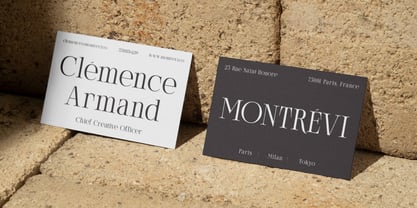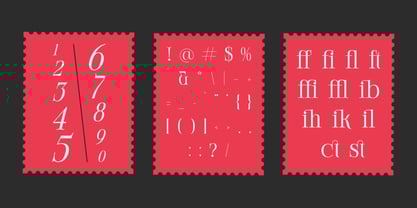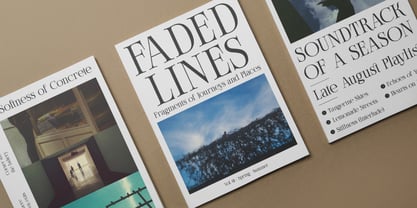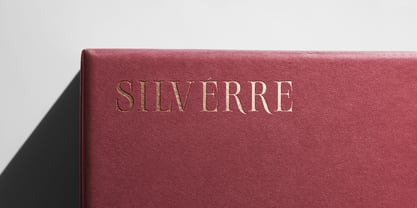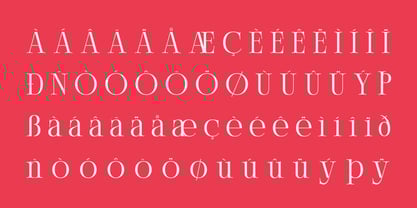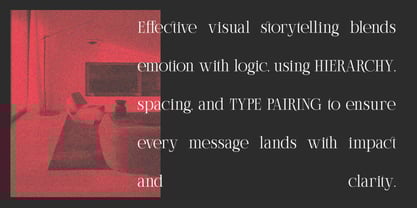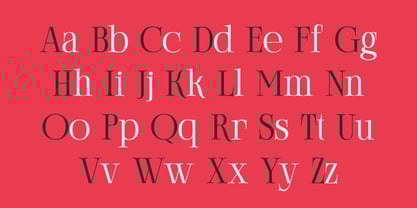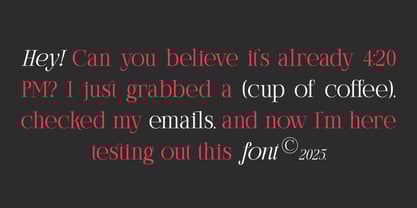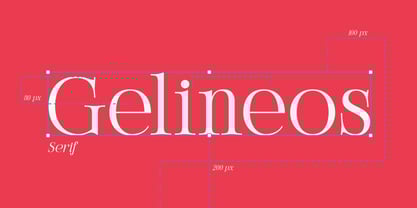
Gelineos
A serif with character, crafted for elegance and modern storytelling.
Gelineos brings a fresh perspective to traditional serif fonts—delicate in form, yet confident in expression. Designed with subtle contrast and refined curves, Gelineos adds a poetic presence to every letterform, making it perfect for visual narratives, print editorials, and contemporary branding.
Whether used in large titles, poetry excerpts, or fashion campaigns, Gelineos knows how to speak softly with style or stand out with sophistication. Each glyph feels intentional—timeless with a whisper of flair.